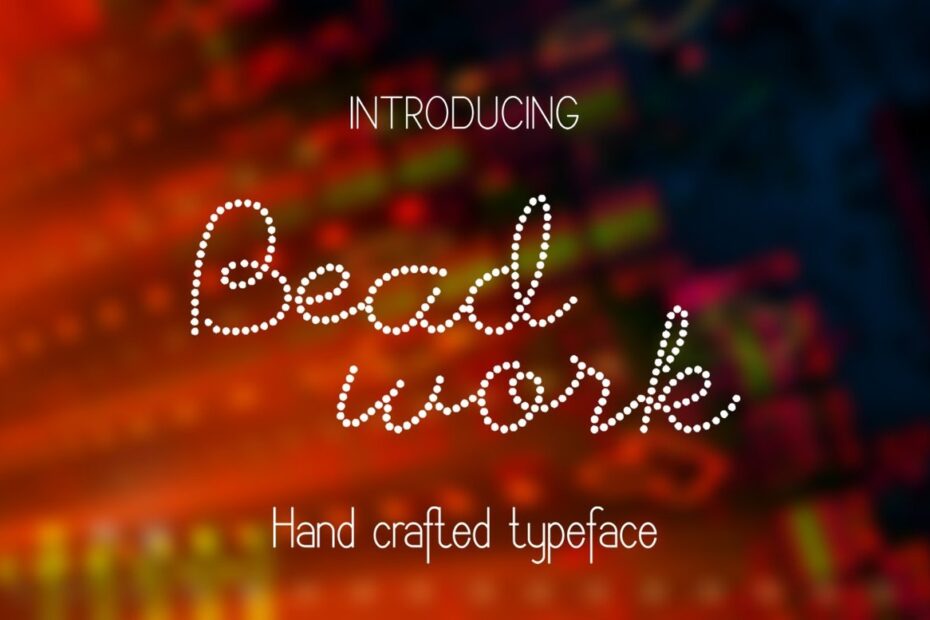
The Sparkle of Creativity
Have you ever stared at a blank canvas, waiting for inspiration to strike? For designers, that moment of creative spark is what drives them to push boundaries and try new things. It’s a thrill that can come from anywhere – a walk in nature, a conversation with a friend, or even a simple sparkly decoration. That’s exactly what happened when the Beadwork Font was born, inspired by the glamour of rhinestones and crafted on a digital tablet.
The Beadwork Font is a unique typeface that adds a touch of sophistication and whimsy to any design. Its creators aimed to capture the essence of beaded jewelry, infusing it into a digital format that designers can use to elevate their work. Whether you’re a seasoned pro or just starting out, this font is a valuable addition to your toolkit.
Beadwork Font Key Features
- Unique Characteristics: Beadwork Font is a decorative font designed to resemble beaded jewelry, making it perfect for craft and hobby-related projects, as well as for designers looking to add a touch of handmade charm to their work.
- Font Style: Available in both uppercase and lowercase letters, with a range of punctuation marks and symbols, making it easy to use in a variety of contexts.
Beadwork Font Review
Overall, I’m quite impressed with the Beadwork Font. ✨ The unique blend of Eastern and Western styles has given this font a distinct personality. The subtle texture and organic feel make it perfect for designers looking to add a touch of handcrafted elegance to their projects.
The font’s versatility is another major plus. ✨ It can be used for a wide range of applications, from invitations and stationery to digital products and branding materials. The font’s beauty lies in its simplicity, making it easy to pair with various color schemes and design elements.
- Unique blend of Eastern and Western styles
- Subtle texture and organic feel
- Perfect for adding a touch of handcrafted elegance
- Highly versatile
- ⚠️ Limited to a single font weight, which may limit its use in certain applications
- ⚠️ May not be suitable for very large or complex text
- ⚠️ Some users may find the font’s texture distracting in certain contexts
Overall, I’m very pleased with the Beadwork Font and would recommend it to designers looking for a unique and versatile font. With a little creativity, the Beadwork Font can add a beautiful touch to any design project.
The Beadwork Font is commonly used for:
- Party decorations and signage
- Handmade craft labels and packaging